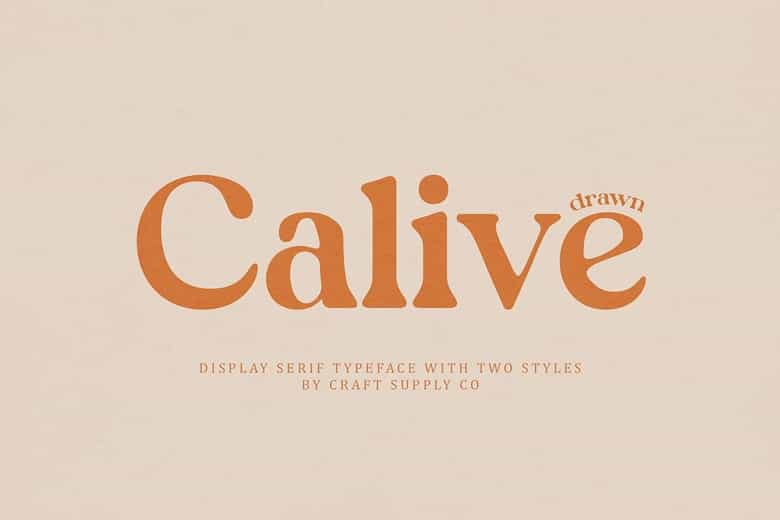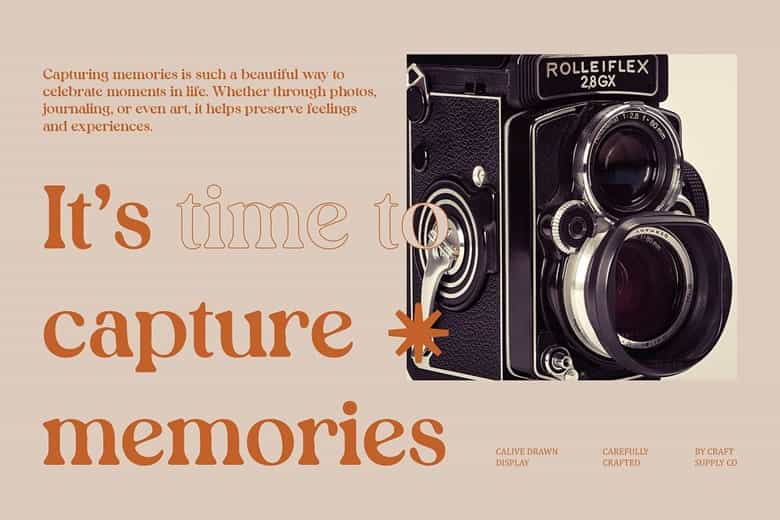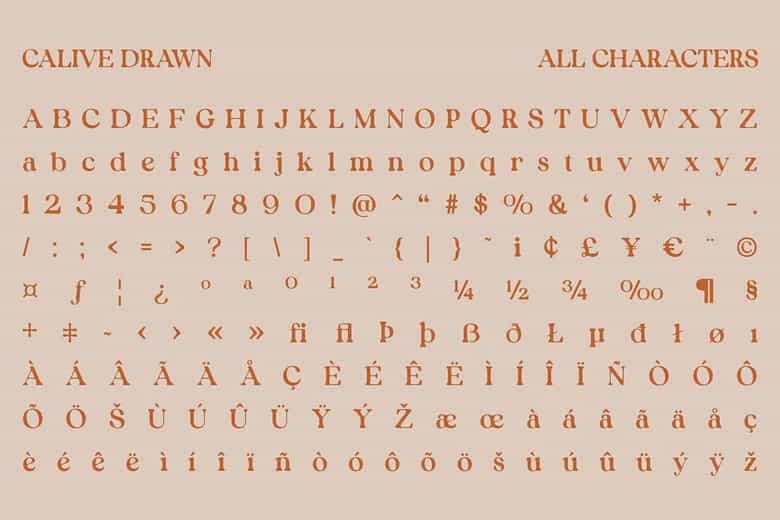
Calive Drawn is a new serif font that represents the traditional feel of the 90s in the most elegant way possible. There are elements of art decor and clear lines which give it a vintage look and feel that will make anyone who looks at it feel like they are being transported back in time. The specific lettering of this font has a hand drawn look to it that is very appealing making it a good font for any project.